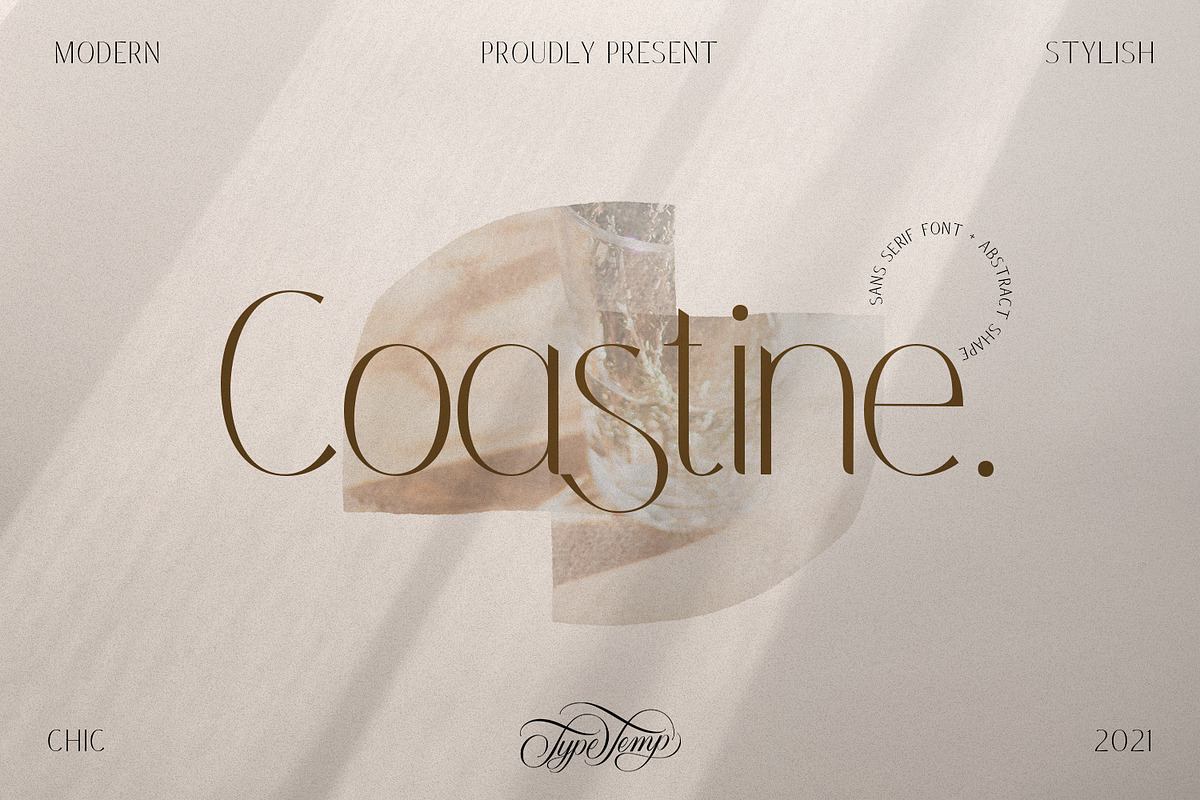
Coastine - Chic Modern Font Free Download
The Coastine - Chic Modern Font Free Download is a sleek and sophisticated typeface designed to bring a refined, contemporary touch to your designs. Perfect for fashion branding, editorial layouts, websites, and upscale product packaging, this font blends modern elegance with timeless style.
With clean lines, subtle curves, and a minimalist aesthetic, Coastine offers a versatile look suitable for both print and digital projects. It includes uppercase and lowercase letters, numbers, punctuation, and multilingual support, providing flexibility for all your design needs.